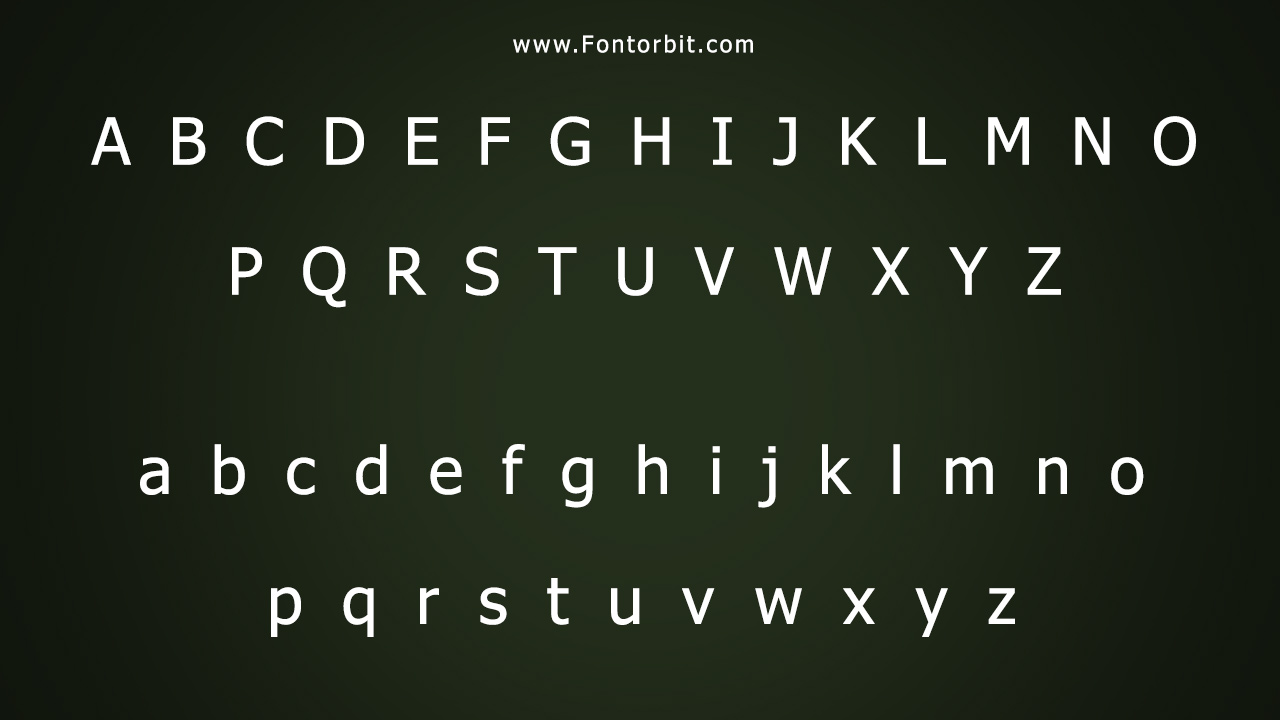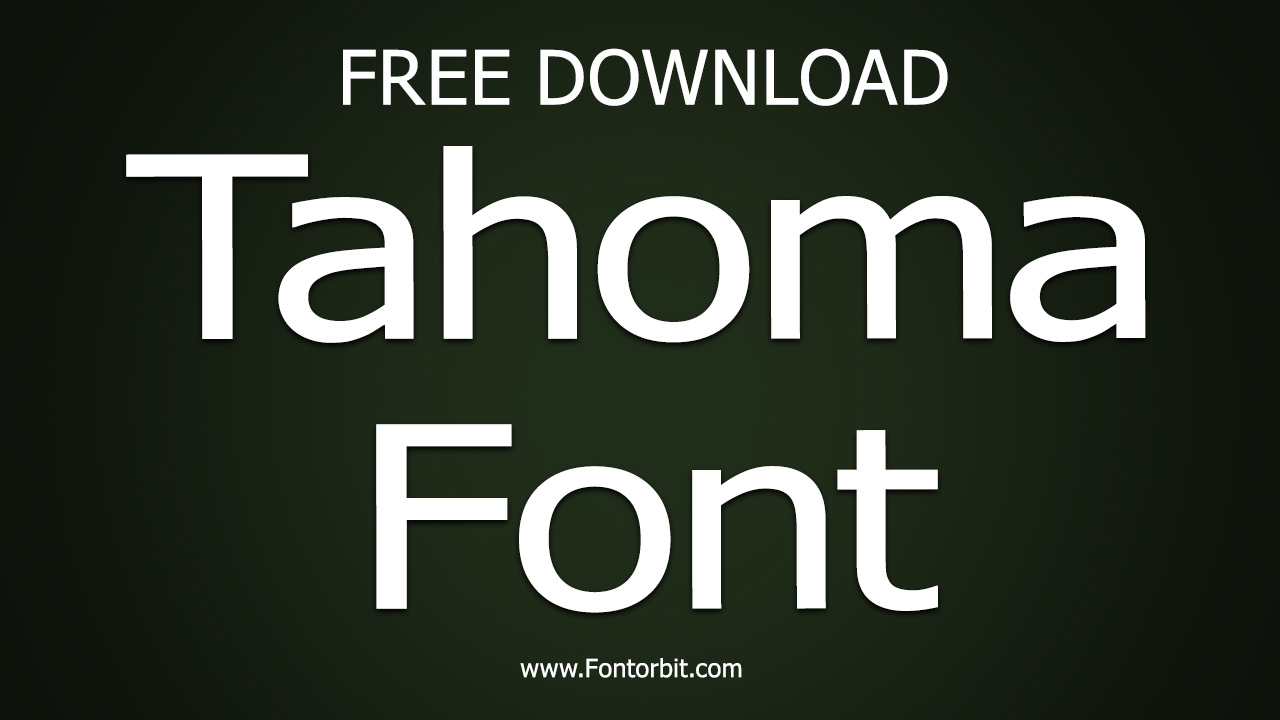
Tahoma is a widely recognized sans-serif typeface designed by Matthew Carter and published by Microsoft Corporation in 1994. Initially introduced as a core font for Windows 95, Tahoma quickly gained popularity for its clean and legible design. It belongs to the sans-serif font family, making it versatile for digital and print use.
Tahoma Font Family Includes
Tahoma is part of the larger sans-serif family, known for its simplicity and ease of reading. The Tahoma font family has remained popular due to its clarity in both small and large text sizes. It includes the following styles:
a. Tahoma Regular
Notable Uses Of Tahoma
Tahoma has been widely adopted for various applications due to its clear and readable design. It is used in:
- Microsoft Windows user interface
- Website and app design
- Print media
Tahoma’s neutral and highly legible style makes it suitable for multiple environments. You should consider using Tahoma for:
- Business documents
- Web content
- Software interfaces
If you are looking for free alternatives to Tahoma, here are some options:
- Verdana Now
- MS Reference Sans Serif
- Delius
- Aroania
- Verdana Pro Cond
- Halion
Tahoma remains a go-to font for both digital and print media due to its balance of simplicity and functionality. It offers a great combination of readability, especially in user interfaces, and versatility in design projects. Its clean lines and neutral style make it timeless.
1.What Font Family Does Tahoma Belong To?
Tahoma is part of the sans-serif font family.
3.What Is Tahoma Best Used For?
Tahoma is ideal for both digital interfaces and print materials.
4.Is Tahoma Similar To Arial?
Yes, both are sans-serif fonts, but Tahoma has a slightly narrower design.
6.What Are The Best Alternatives To Tahoma?
Segoe UI, Verdana, and Open Sans are good alternatives.
7.Is Tahoma Still Widely Used?
Yes, Tahoma is still used in many applications, particularly for user interfaces.